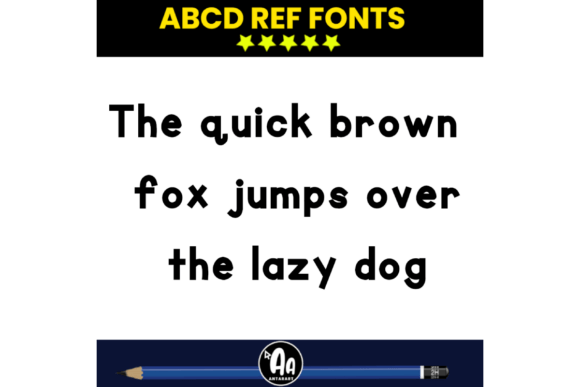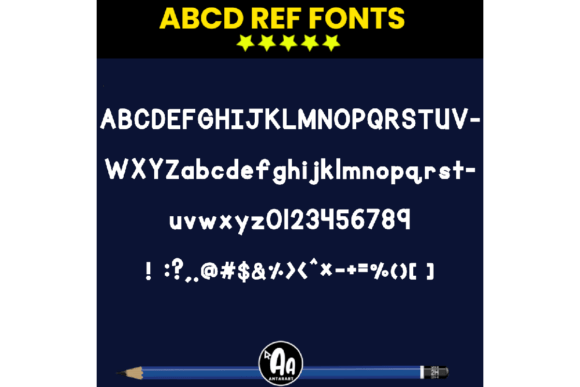
Introducing the Perfect Tool for Young Learners: Abcd Ref Bold Tracing Font
Do you remember the thrill of learning to write your first words? The feeling of tracing letters with your finger, watching as the lines and curves came together to form a word? For many children, this is a pivotal moment in their educational journey, and it’s a moment that can be made even more enjoyable with the right tools.
That’s where the Abcd Ref Bold Tracing Font comes in – a high-contrast tracing font designed specifically for young learners. With its bold letterforms and clear design, this font makes it easy for children to recognize and write letters, numbers, and words. Whether you’re a teacher, homeschooler, or parent, the Abcd Ref Bold Tracing Font is an invaluable resource for creating engaging and effective learning materials.
Abcd Ref Bold Tracing Font Key Features
- Font Family: Abcd Ref Bold Tracing Font is a unique font designed for tracing and handwriting practice.
- Unique Characteristics: The font features bold and clear lines, making it ideal for tracing and handwriting practice, especially for children and individuals with visual impairments.
Abcd Ref Bold Tracing Font Review
Overall, I think Abcd Ref Bold Tracing Font is a decent font, but it has its limitations. Here’s my honest review.
- Great for tracing: The font is designed specifically for tracing, making it perfect for kids, art classes, and educational purposes.
- Easy to read: The bold style is easy on the eyes, even for extended periods of use.
- Limited style options: While the font is bold and easy to read, it lacks the variety of styles and weights that other fonts offer.
- Not suitable for formal use: The font’s playful and childish nature makes it unsuitable for formal or professional designs.
- May not be scalable: The font’s bold style can become too overwhelming when scaled up, losing its effectiveness.
In conclusion, Abcd Ref Bold Tracing Font is a solid choice for specific use cases, but it may not be the best fit for every design project. Its limitations should be considered before choosing this font.
Use Abcd Ref Bold Tracing Font for:
1. Creating bold and striking headings and titles.
2. Adding a unique and creative touch to your design.
3. Creating a retro or vintage aesthetic.
Remember to experiment with different font sizes and styles to get the most out of Abcd Ref Bold Tracing Font.
For optimal tracing results, we recommend using the Abcd Ref Bold Tracing Font at a size between 24-48 points. This will allow for clear and easy-to-read letterforms, making it easier to practice tracing and writing.